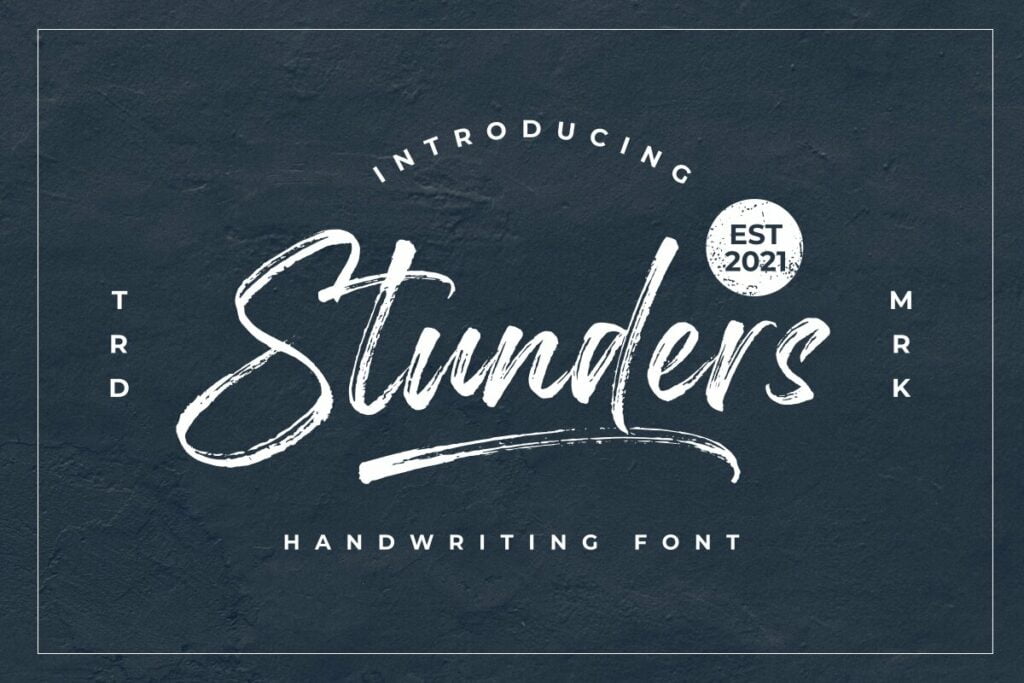
Stunders Font
Stunders Font is a brush script type created by Ghuroba Studio with natural fast writing featuring a unique and distinctive texture. Stunders is perfect for branding, logos, product packaging, apparel, cards, quotes, and more for your amazing design!
Stunders Brush Script Font